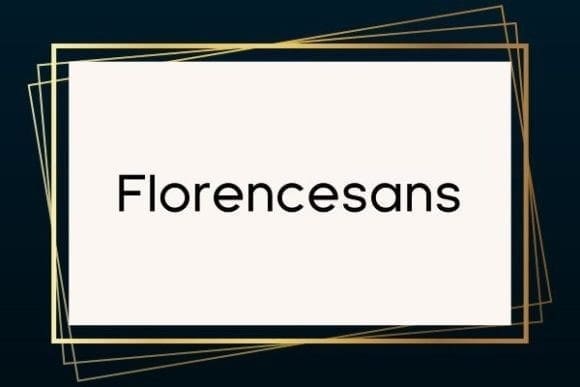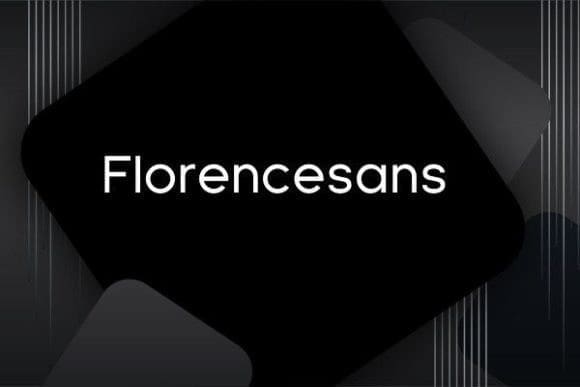
Florencesans Font
Florencesans Font is a classic sans serif font that has a clear, elegant, and familiar look. This typeface will give your craft the warm appearance you are looking for. This font pack has tens of styles for everyone’s taste.